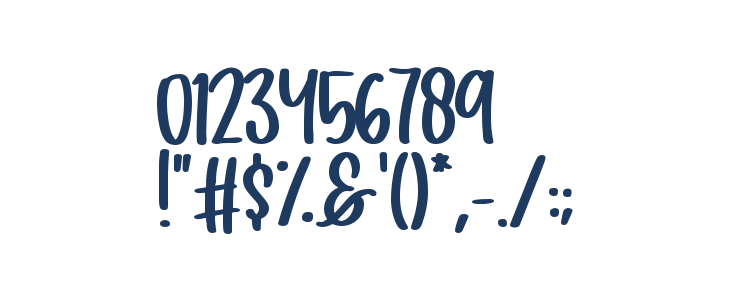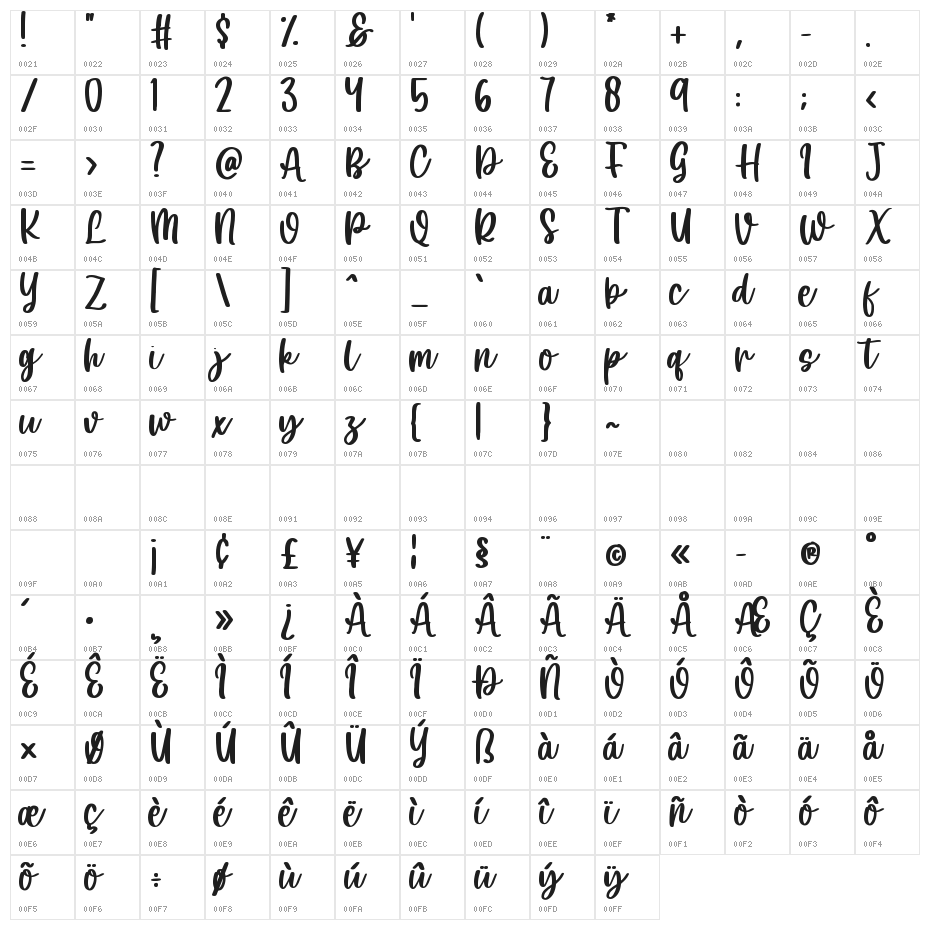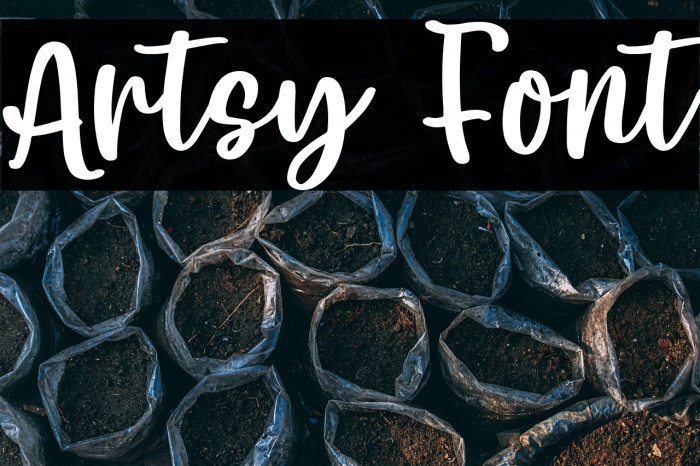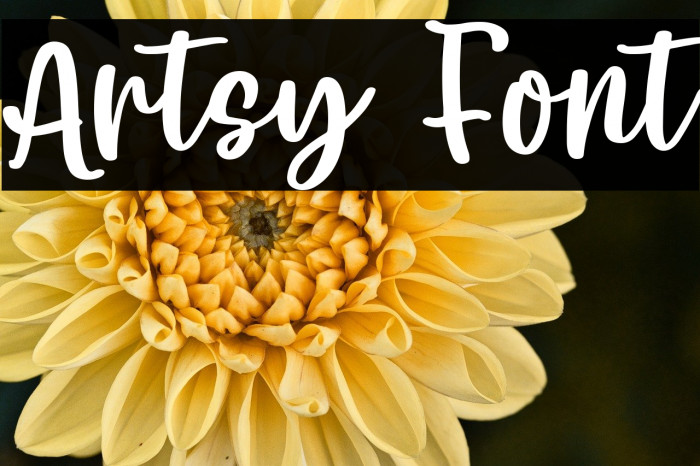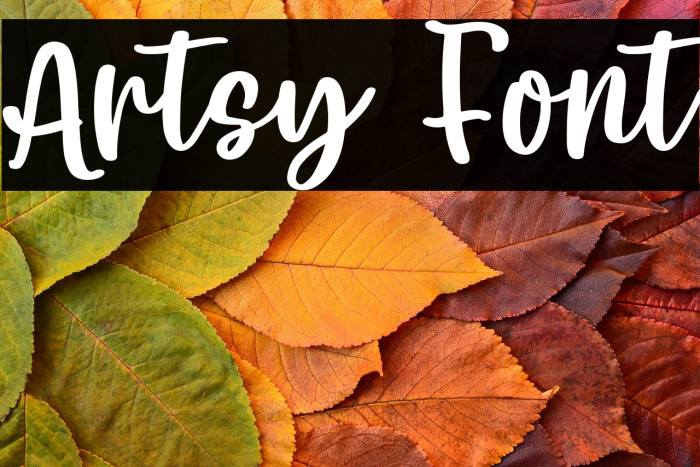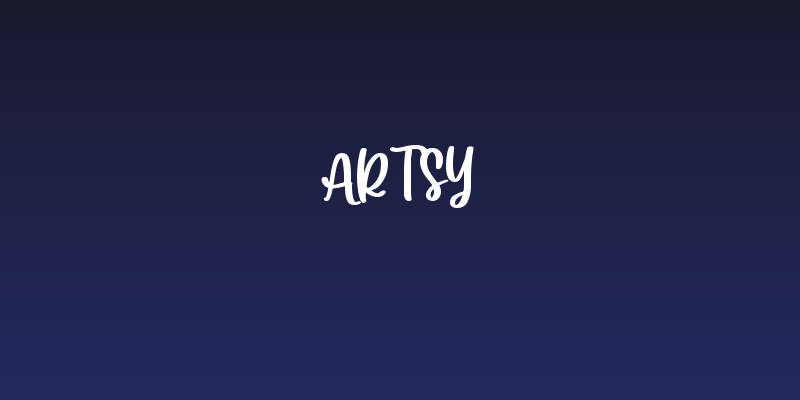
Artsy Font
Artsy Description
This font exudes a playful and artistic vibe with its handwritten style, characterized by smooth, flowing curves and a casual, yet elegant appearance. The letters are interconnected, giving a sense of continuity and fluidity, while maintaining legibility. The uppercase and lowercase letters complement each other well, with a consistent stroke width that adds to its cohesive look. The numerals and special characters are crafted with the same attention to detail, ensuring a harmonious overall design. This font is perfect for projects that require a personal touch, such as invitations, greeting cards, or creative branding.